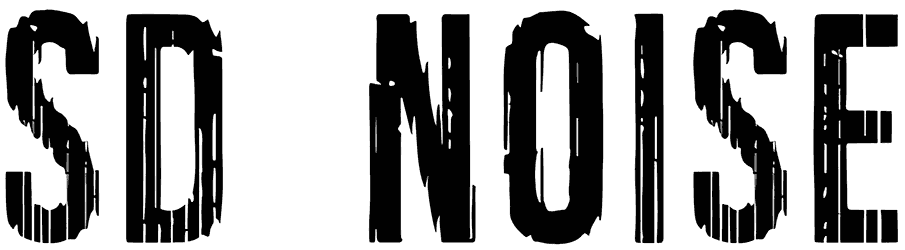
SD Noise Font
You’re lucky if your current design project needs no numbers or punctuation because that means you get to use SD Noise. Besides lacking those elements, this distorted font is perfect in every other way.
Whether you want to win over the audience with a creative visual impact or you want your words to be delivered in a tense tone, this hacker font is yours. Now you get to create all kinds of scary posters, cool T-shirts, and even gaming logos.